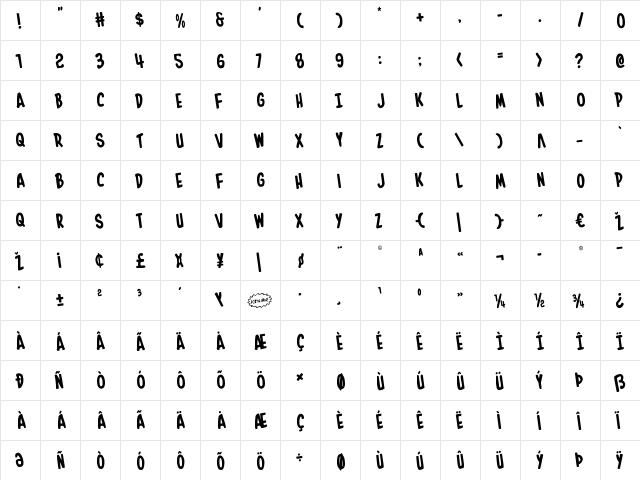
In-House Edition Rotated Regular
Design Context for In-House Edition Rotated Typeface
In-House Edition Rotated is a composed and adaptable typeface that performs quietly and consistently across a wide range of design contexts.